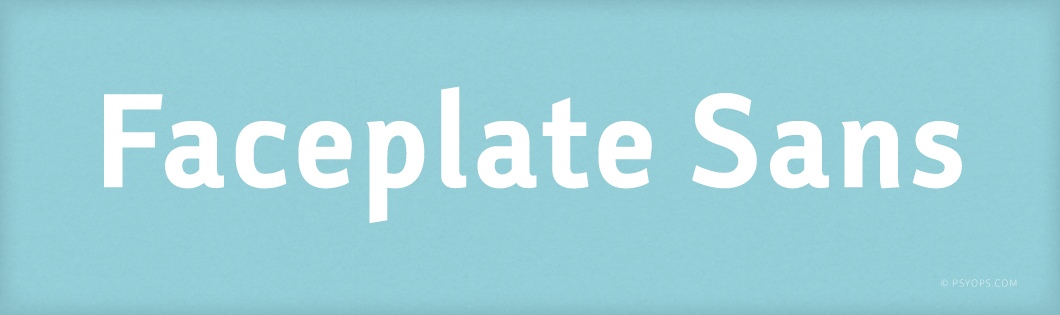
Faceplate Sans Font
Faceplate Sans Font is perfect for industrial branding projects, mechanical design applications, technical documentation, engineering firm logos, manufacturing company materials, architectural blueprints, automotive industry communications, and professional equipment packaging. This robust typeface works exceptionally well in both digital interfaces and print media where precision, durability, and technical expertise are fundamental design requirements.
What makes Faceplate Sans Font so exciting is its distinctive industrial aesthetic that perfectly captures the essence of mechanical engineering and manufacturing precision through carefully crafted letterforms. The font features clean, sturdy characters with technical proportions, utilitarian spacing, and structural details that evoke the reliability of well-engineered machinery and professional equipment. Its functional personality and industrial heritage make it ideal for brands seeking to communicate technical expertise, manufacturing quality, and engineering excellence while maintaining superior legibility across technical applications.
The Faceplate Sans Font family includes multiple weight variations from light to bold, along with condensed versions and technical alternates. Each style maintains the typeface's industrial character while offering comprehensive character sets including technical numerals, engineering-focused punctuation marks, and special symbols designed to enhance manufacturing and technical communications across global industrial markets.
This exceptional typeface represents the perfect fusion of industrial design principles and modern typographic functionality for technical industries. Whether you're developing manufacturing brand identities, creating technical manuals, or designing engineering presentations, Faceplate Sans Font Free Download delivers the professional reliability and versatility needed to communicate technical competence effectively. The font's industrial aesthetic makes it particularly effective for machinery manufacturers, engineering consultancies, construction companies, and organizations emphasizing precision and technical excellence.
The meticulously engineered letterforms and optimized readability in Faceplate Sans Font ensure consistent performance across technical documents while maintaining its distinctive industrial character. Its sturdy construction makes it ideal for both detailed technical specifications and bold industrial branding where its full mechanical personality can establish immediate credibility with technical professionals and manufacturing audiences.